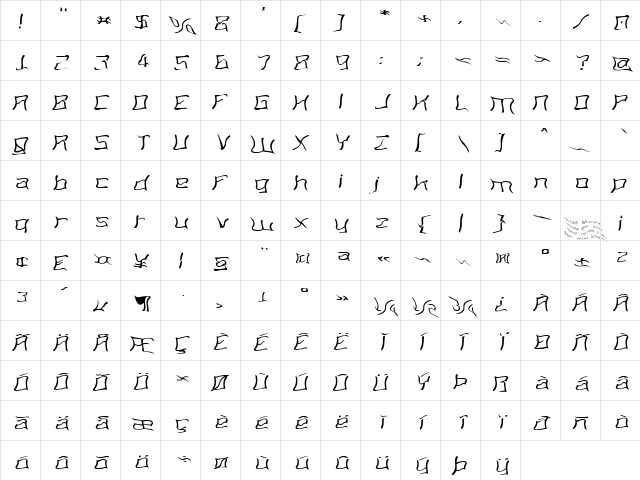
Martians spacewarped my dad Regular
Design Context for Martians spacewarped my dad Typeface
Martians spacewarped my dad is a composed and adaptable typeface that performs quietly and consistently across a wide range of design contexts.